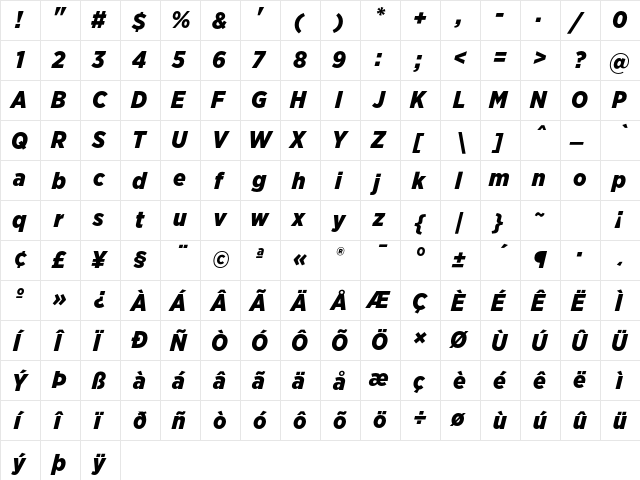
Gotham Narrow Black Italic Font Preview
| Foundry | Hoefler & Frere-Jones |
| Designer | Hoefler & Frere-Jones |
Design Context for Gotham Narrow Typeface
Gotham Narrow offers clean, dependable letterforms without strong stylistic allegiance, making it a practical choice for designers who need flexibility. The dynamic lean of this cut emphasises speed and emphasis in any layout. The condensed width makes it efficient for tight spaces without sacrificing legibility.
Pro Tip: Try Gotham Narrow for annotation and caption copy alongside an upright companion — the contrast in angle creates a dynamic but ordered typographic system.